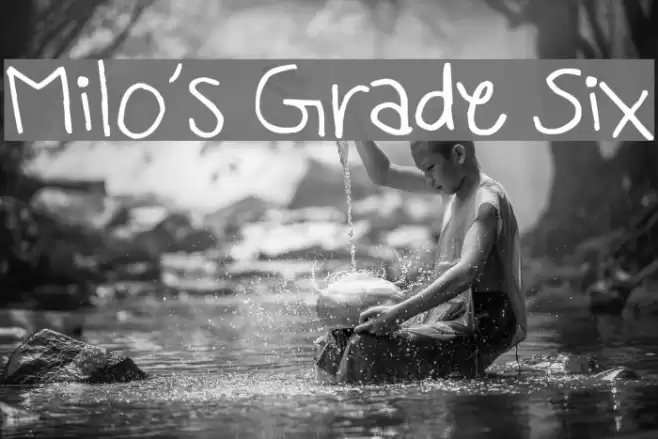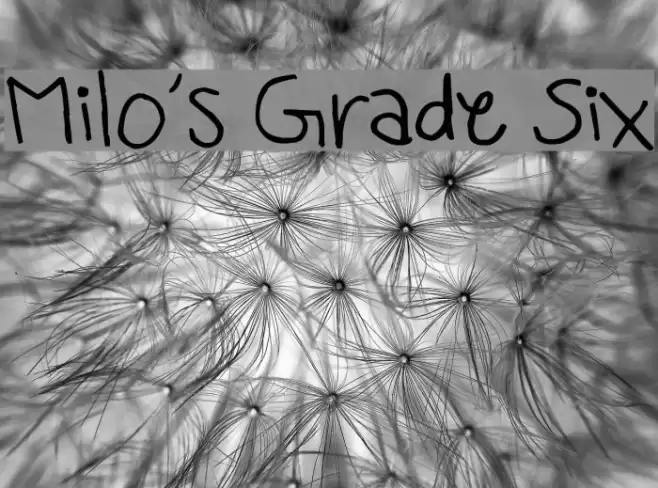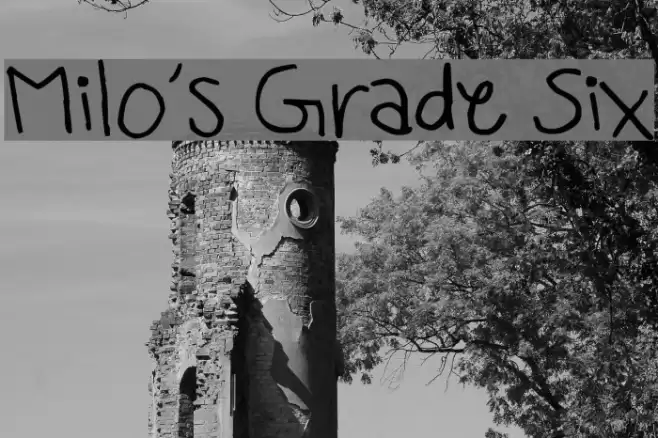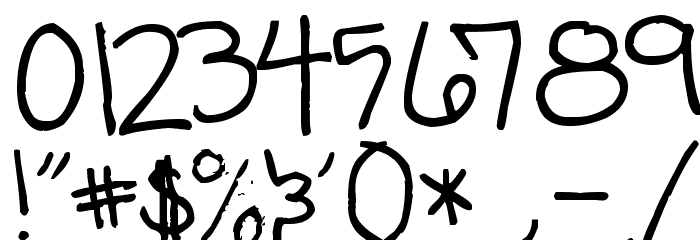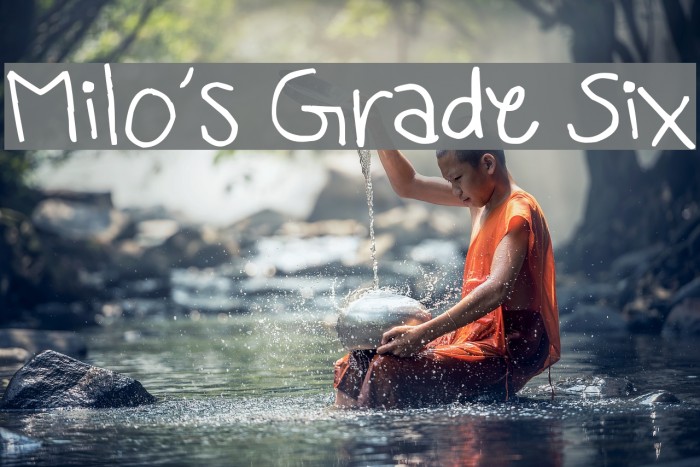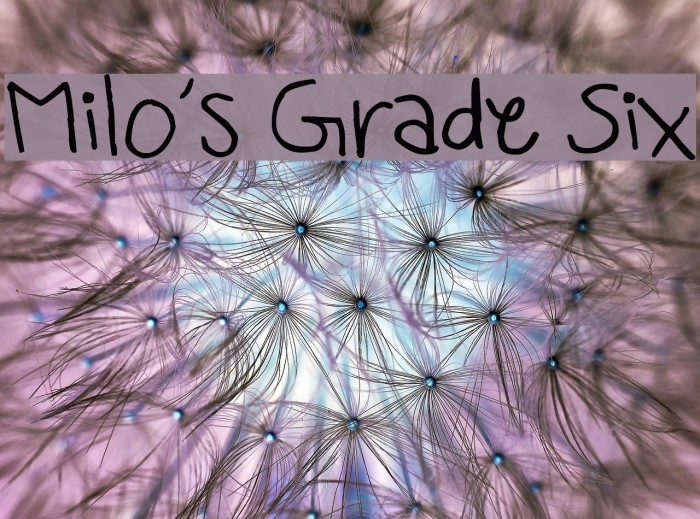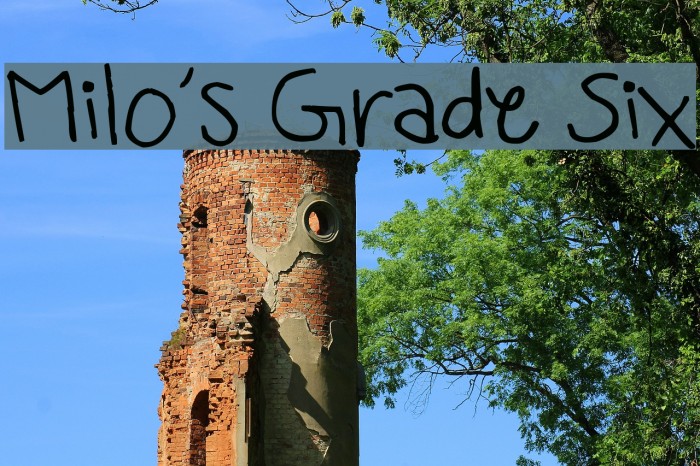
Milo's Grade Six Font
Milo's Grade Six Description
This font exudes a playful and casual handwritten style, reminiscent of a child's writing. The letters are unevenly shaped, with a slightly irregular baseline that adds to its charm. The strokes are bold and confident, giving the font a lively and energetic feel. The uppercase and lowercase letters maintain a consistent style, with rounded edges and a slightly exaggerated form. Numbers and special characters follow the same playful aesthetic, making the font versatile for various informal applications.
A playful, handwritten font with bold, irregular strokes from Uncategorized fonts.
- Proposed Projects: Ideal for children's books, educational materials, playful branding, and casual invitations.
- Overall Style: Casual
- Use Case: Headlines, Informal text, Children's materials